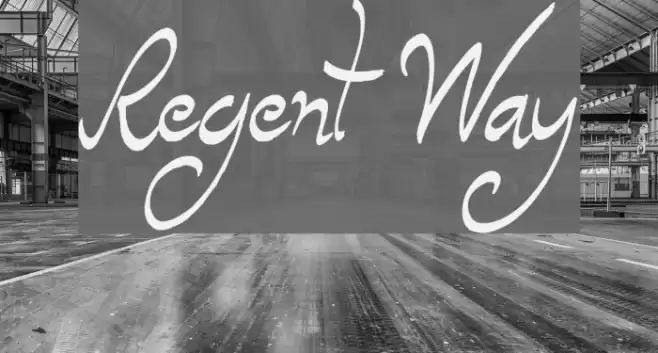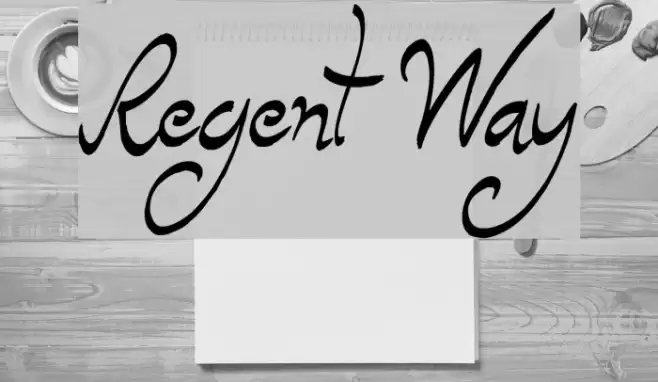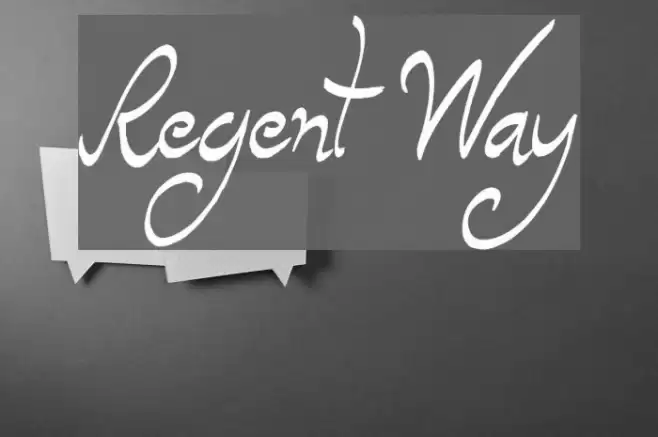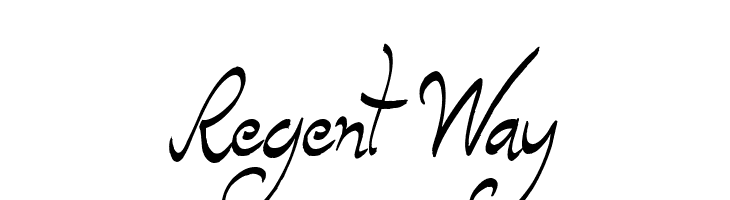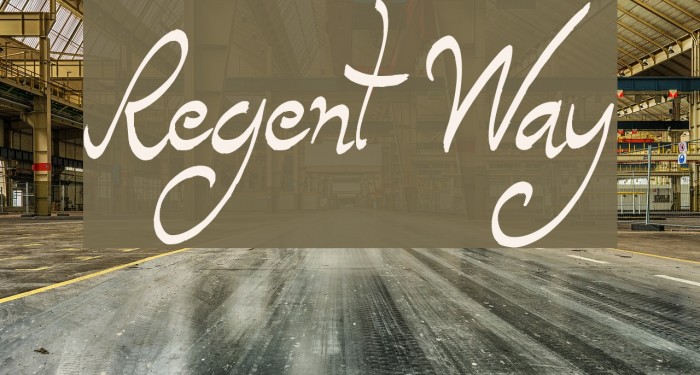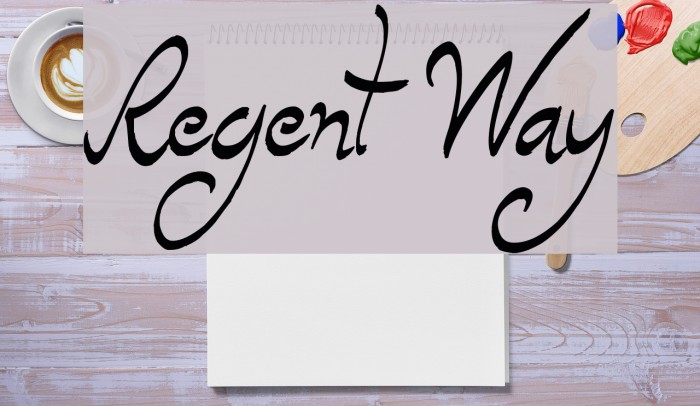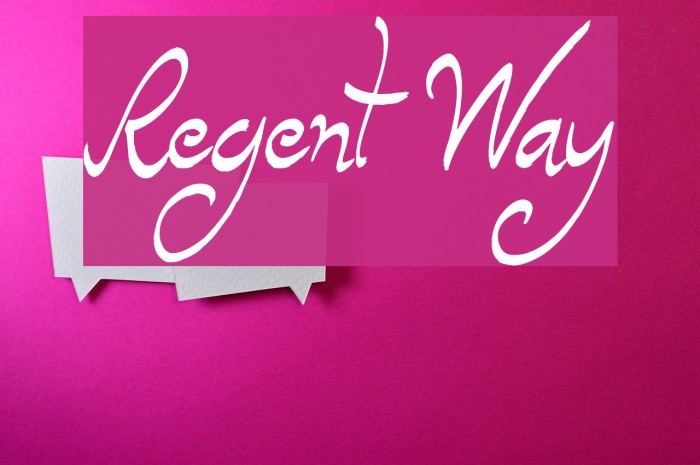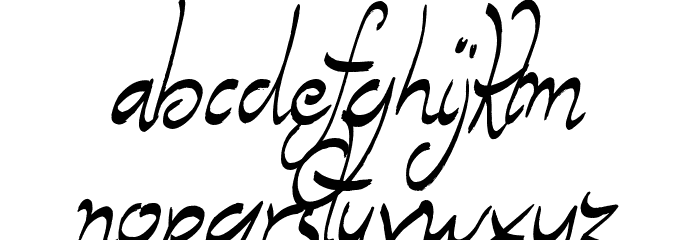
Regent Way Font
Regent Way Description
This font exudes a dynamic and expressive style, characterized by its fluid, cursive script that mimics the elegance of handwritten calligraphy. The uppercase letters are bold and sweeping, with dramatic flourishes that add a sense of movement and flair. The lowercase letters maintain a consistent flow, with smooth curves and loops that enhance readability while retaining an artistic touch. The numbers and special characters are crafted with the same attention to detail, ensuring a cohesive look across all elements. This font is ideal for projects that require a personal, artistic touch, such as invitations, branding, and creative designs.
A dynamic, cursive script font with bold, sweeping strokes and elegant flourishes from Uncategorized fonts.